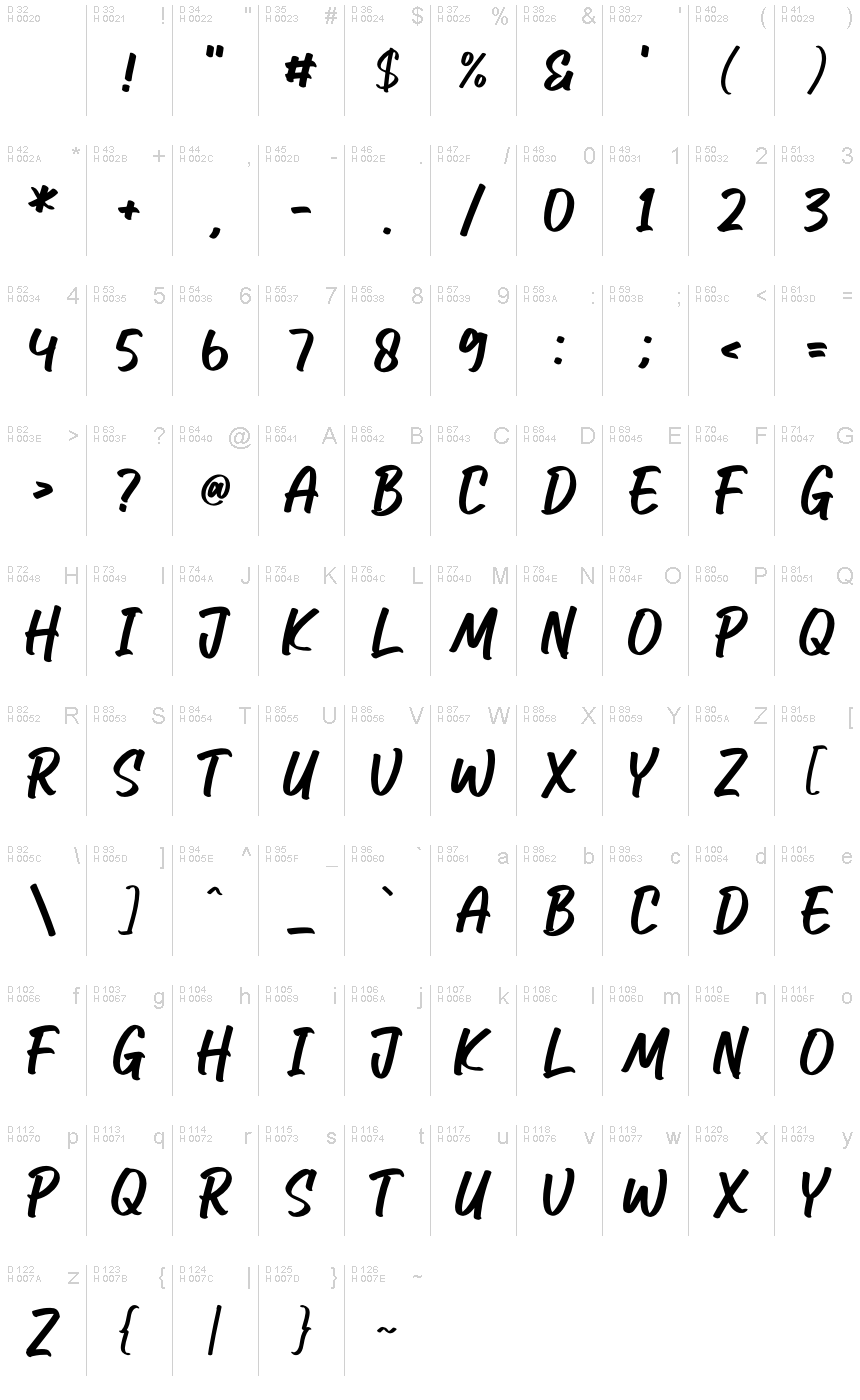
Rockesta
Rockesta is a captivating handwritten font that exudes a harmonious blend of elegance and vibrance. Crafted by the talented team at Perspectype Studio, this font boasts a distinct personality that effortlessly commands attention. The organic, free-flowing strokes convey a sense of authenticity, while the subtle variations in line thickness add depth and character to every letter. Rockesta's alluring aesthetic seamlessly bridges the gap between contemporary and timeless, making it a versatile choice for a wide range of design applications.
This font's versatility shines through its ability to adapt to various design contexts. Rockesta's expressive qualities lend themselves perfectly to branding, editorial projects, and personal expressions, where its unique flair can enhance the visual narrative. Whether used for striking headers, captivating captions, or even heartfelt handwritten notes, Rockesta's captivating presence is sure to leave a lasting impression on the viewer.